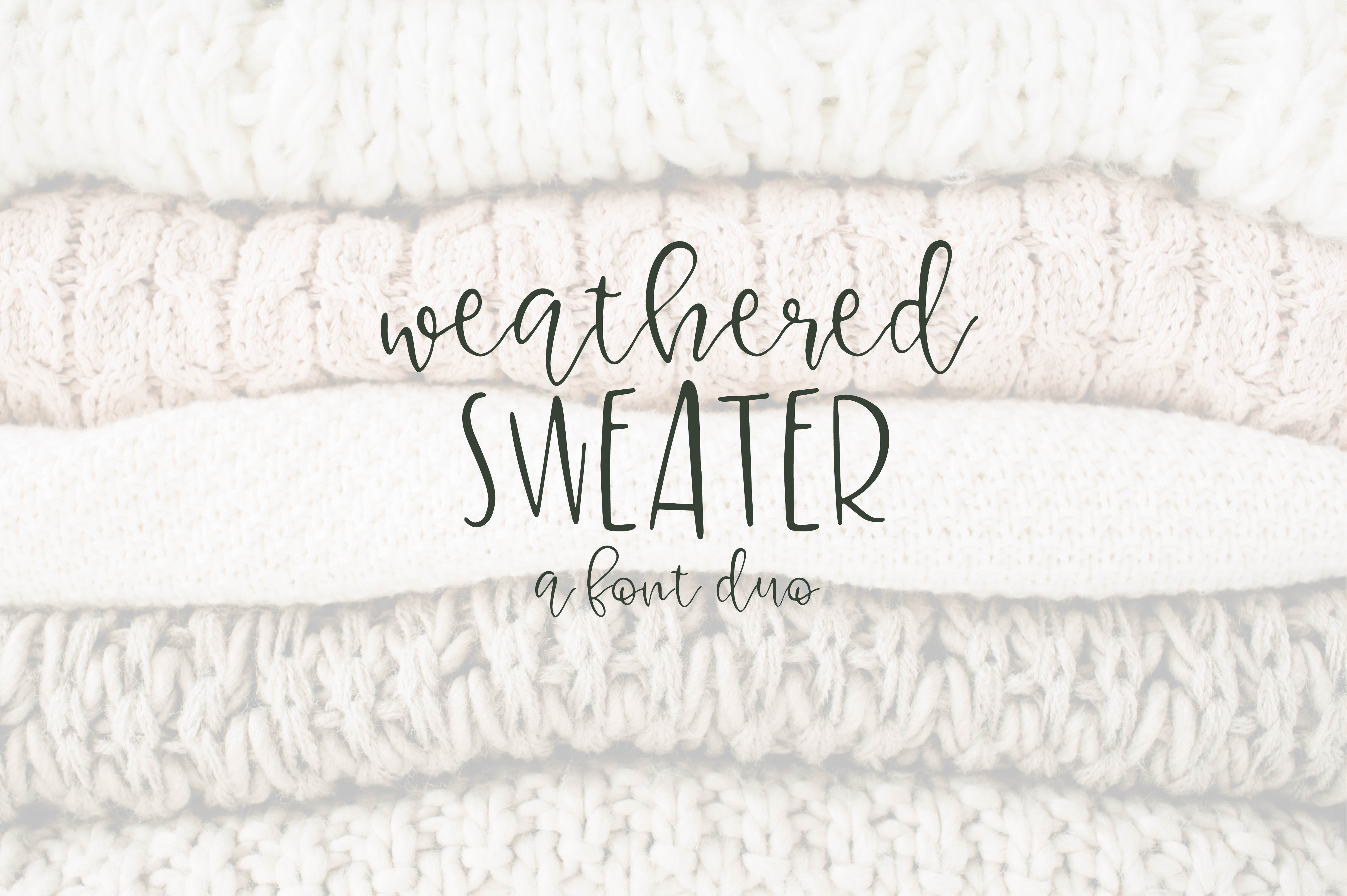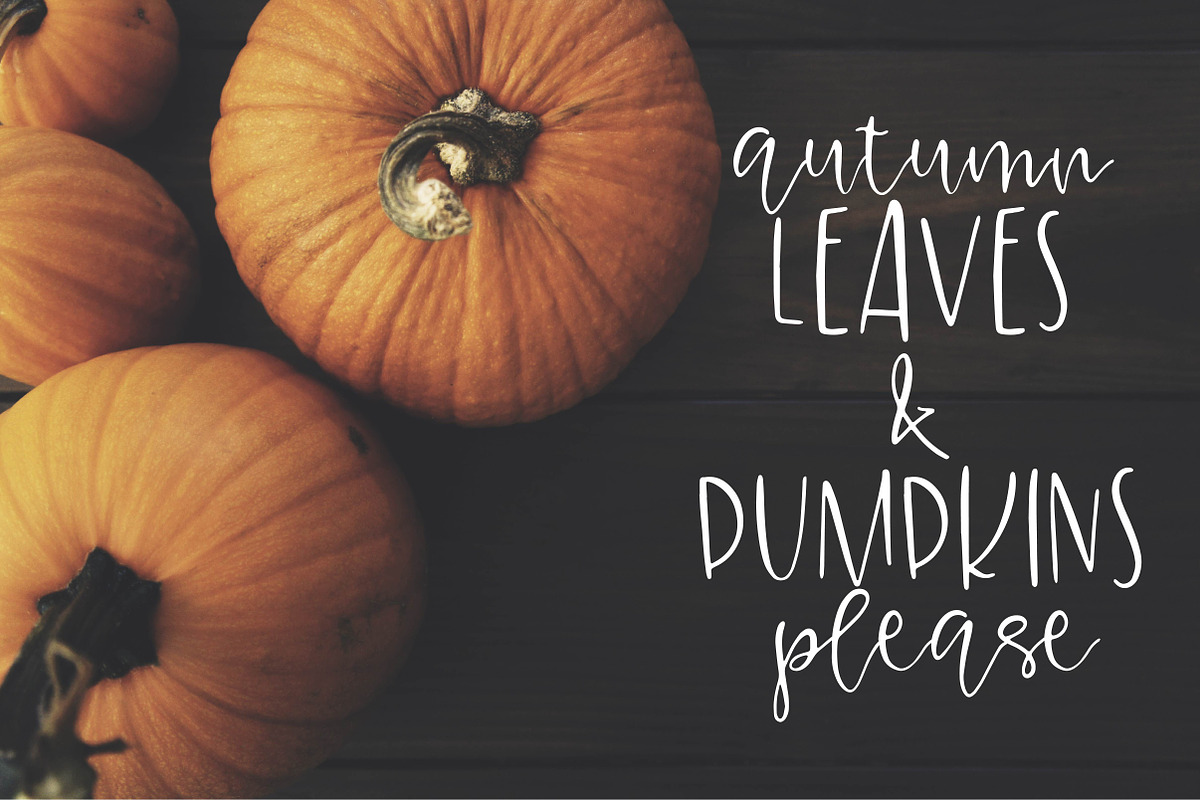
Weatherd Sweater - A Font Duo
The perfect font duo for hand lettered calligraphy! Gives a real farmhouse feel to your custom designs! Uppercase quirky + flowing lowercase script.